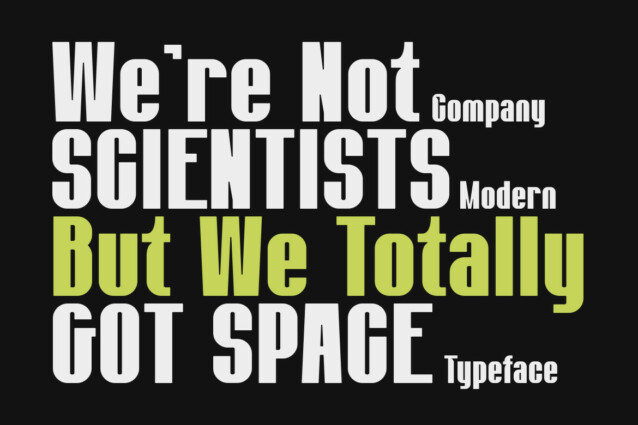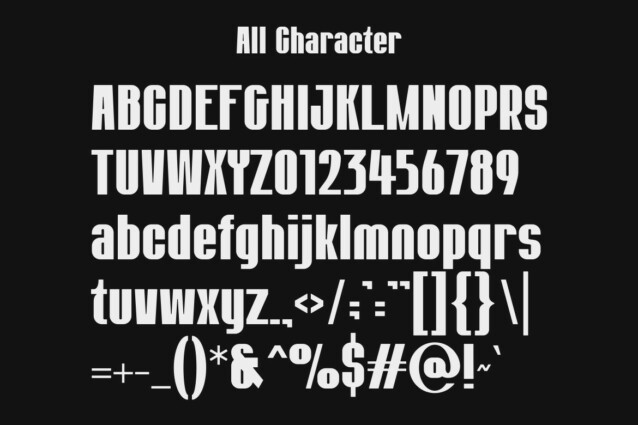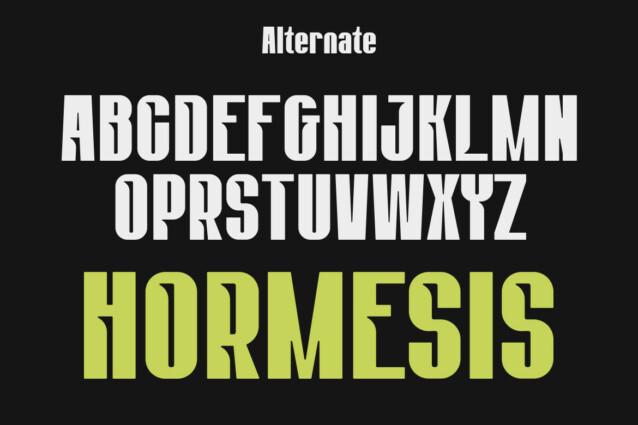
Hormesis Font
Hormesis Font is a type of font that is characterized by narrower or slimmer letterforms compared to regular or wide fonts. Condensed fonts are often used in various graphic designs, print materials, and other media because they have distinct advantages and unique characteristics